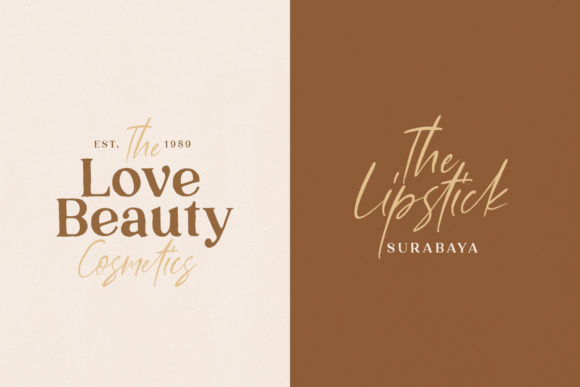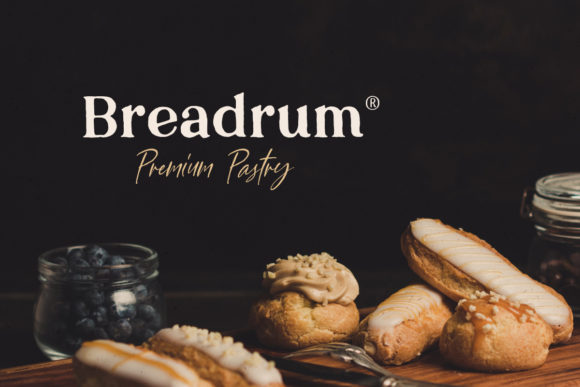
Louise Walker Font
db-ku.com - Script & Handwritten -- Louise Walker is the perfect combination between serif and handwritten. This spectacular duo is incredibly versatile and will fit a wide pool of designs, elevating them to the highest levels. Add this font to your favorite creative ideas and notice how it makes them come alive!